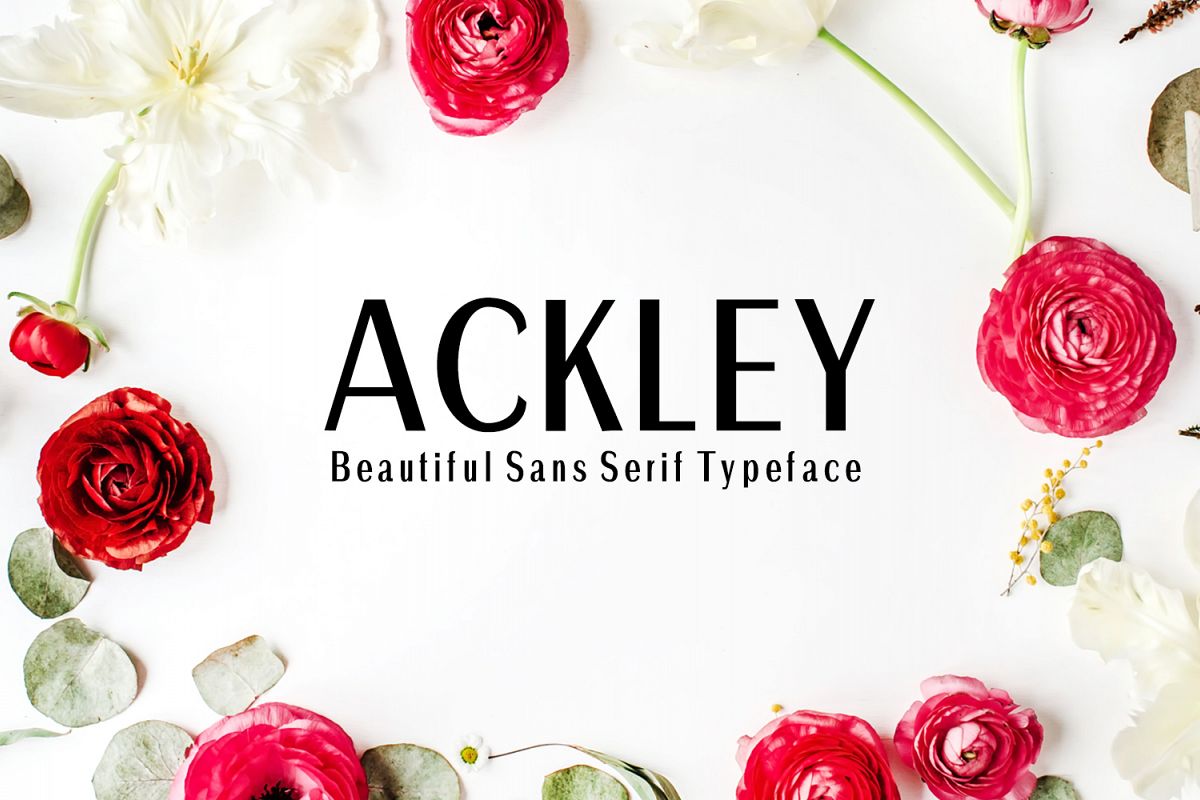
Ackley Beautiful Sans Serif Typeface
Ackley Beautiful Sans Serif Typeface is a clean and simple sans serif font, which contains 7 weights and It features unique and modern sans serif look and feel. Perfect for gorgeous logos, titles, web layouts and branding. It looks gorgeous in all caps with a wide-set spacing if you want to try a classy look, or beautiful on its own in capital and lowercase letters for something completely timeless.
Included Features:
• Font Weight: Regular, Thin, Light, Bold and Italics
Ackley Font Features:
• Uppercase Multilingual Letters
• Lowercase Multilingual Letters
• Alternative